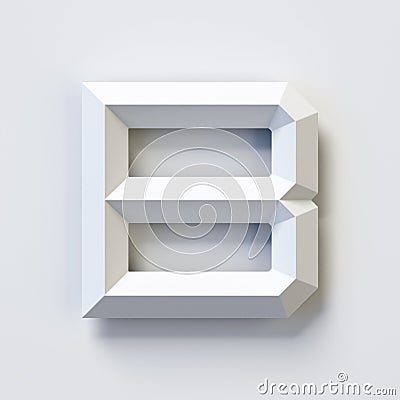
Square three dimensional font, white, simple, geometric, casting shadow on the background wall, 3d rendering, letter B, digital image, isolated illustration